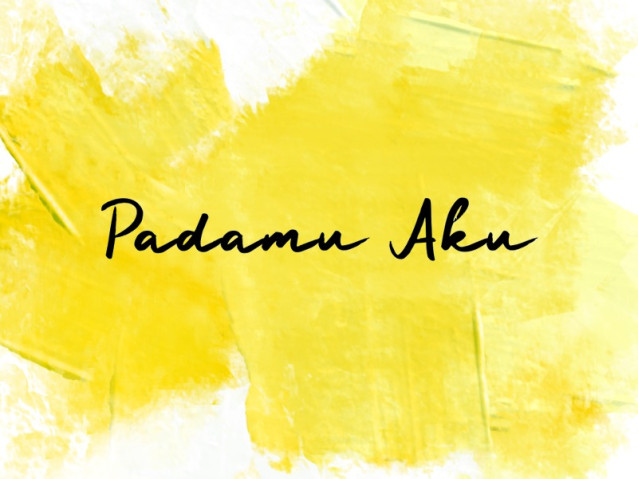
Padamu Aku Font
Padamu Aku Font is a simple and friendly handwritten font. Its natural and unique style makes it incredibly fitting to a large pool of designs. The only limit is your imagination!